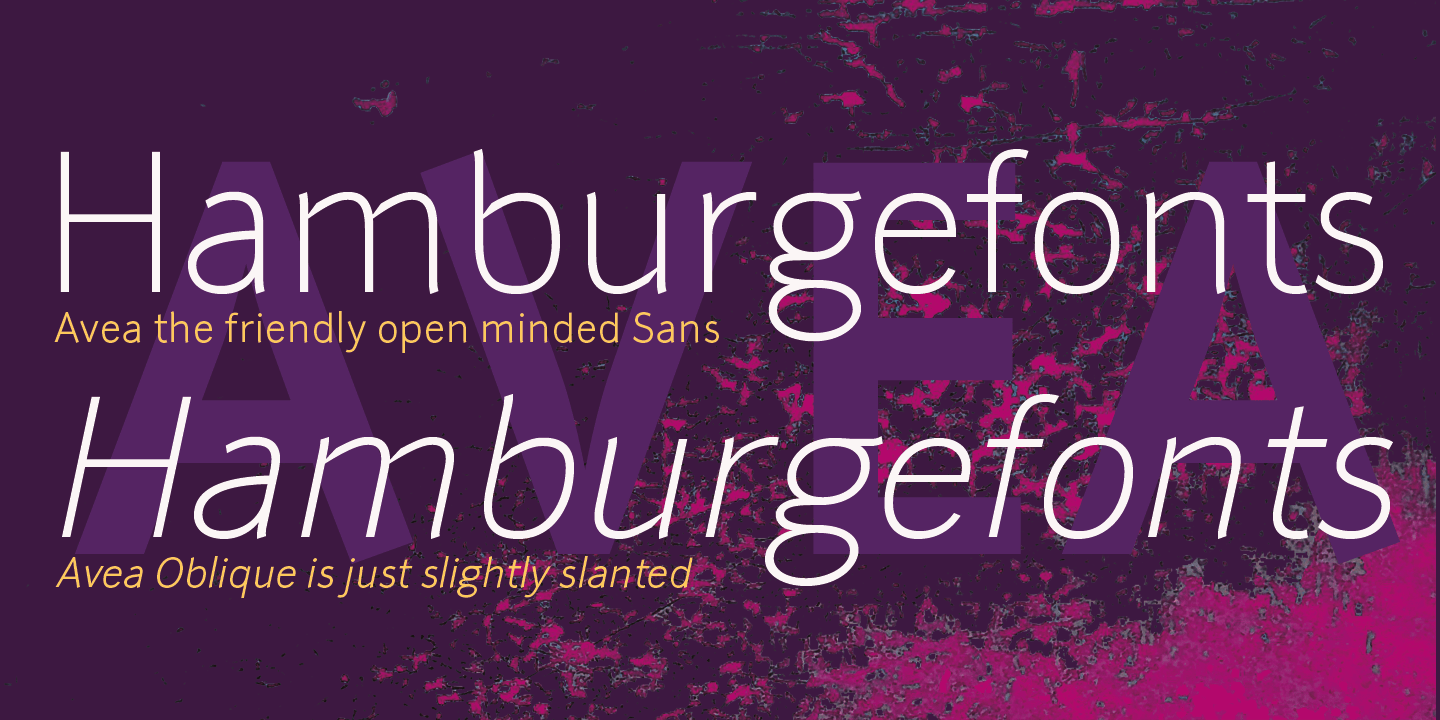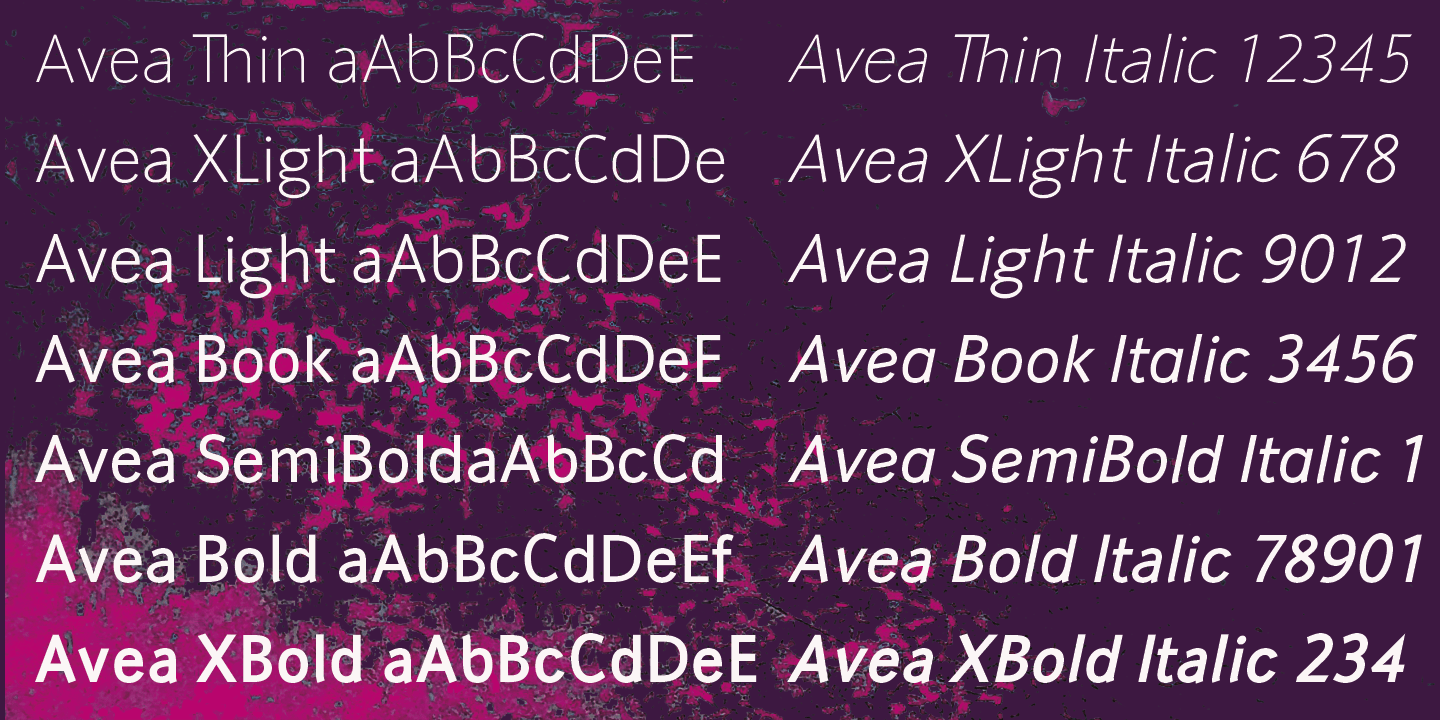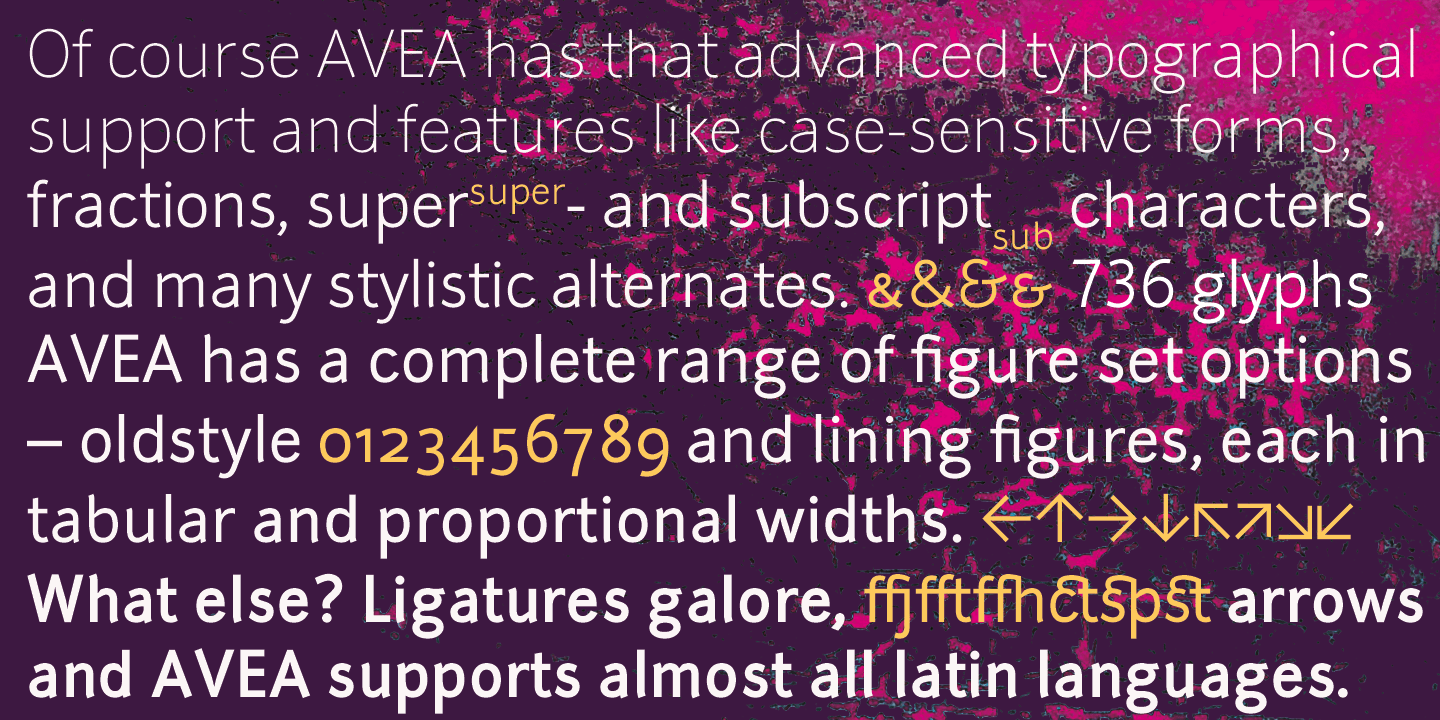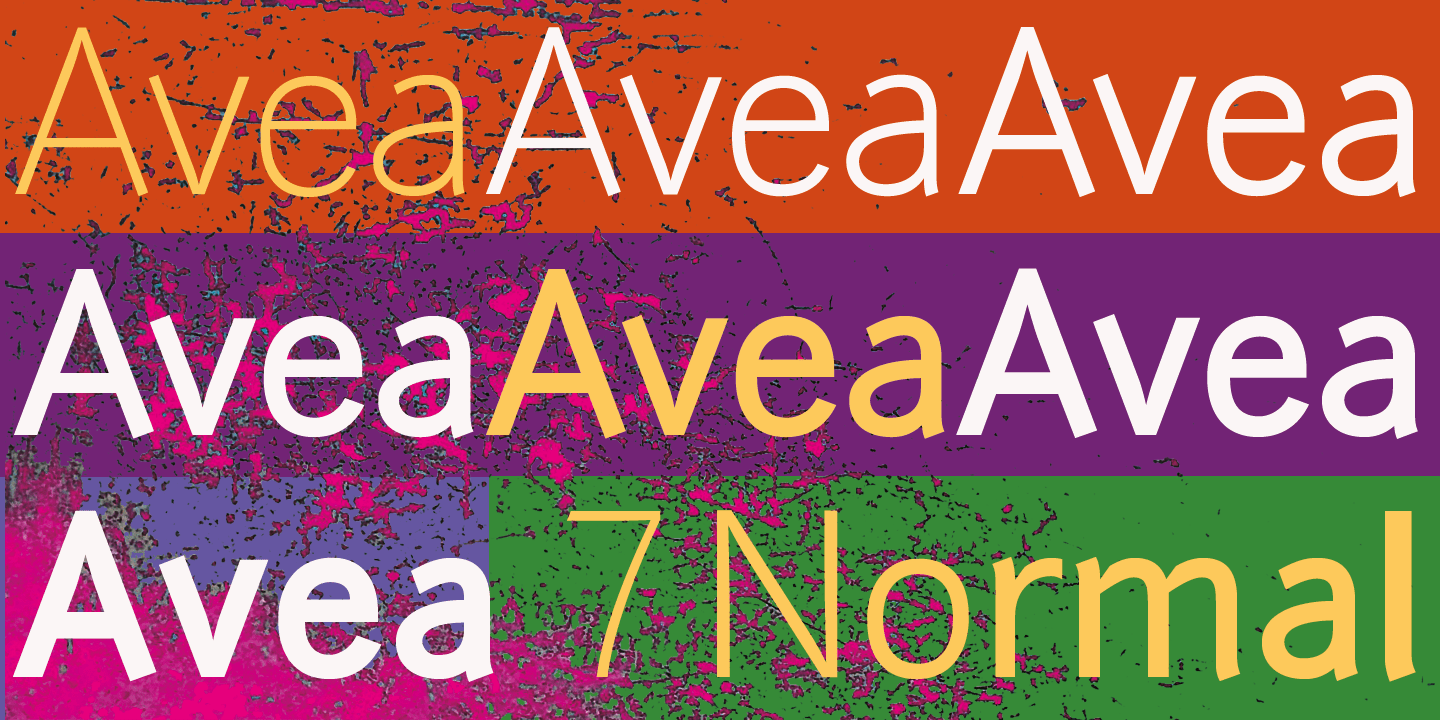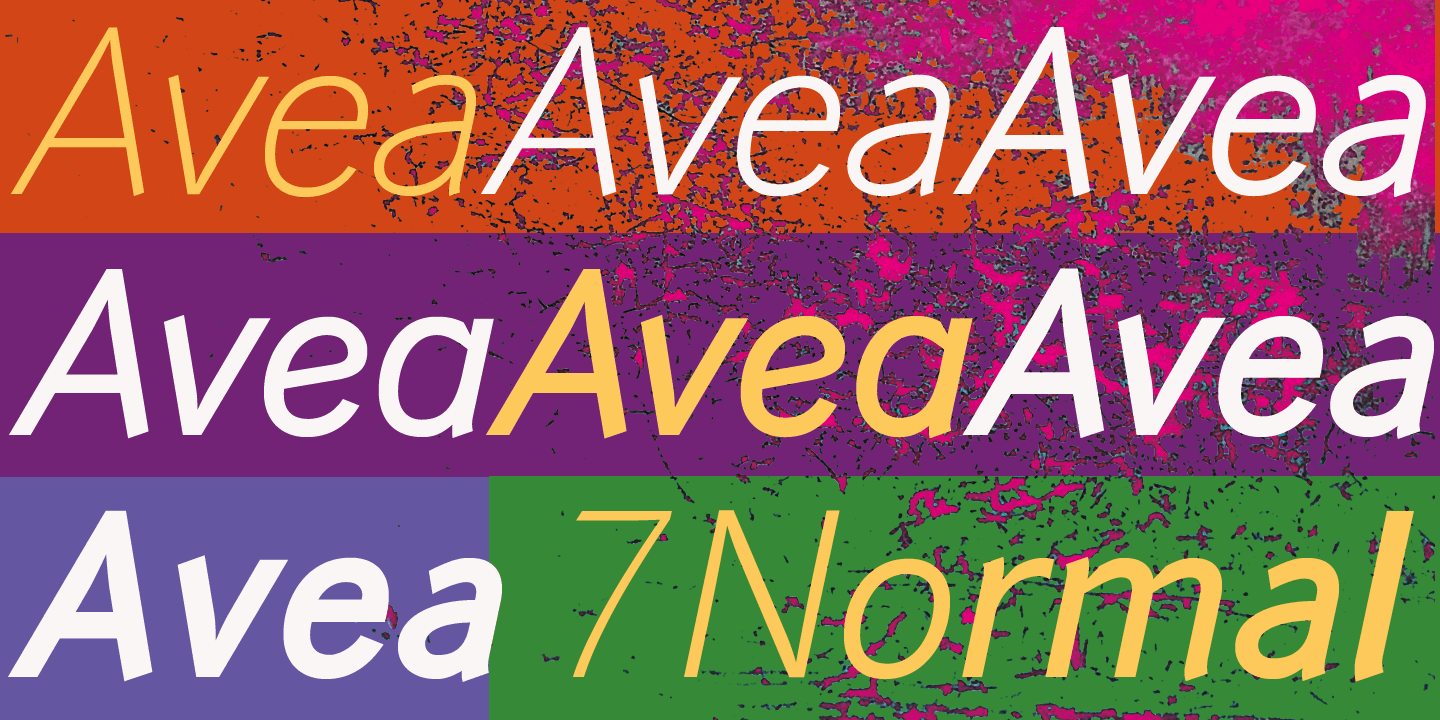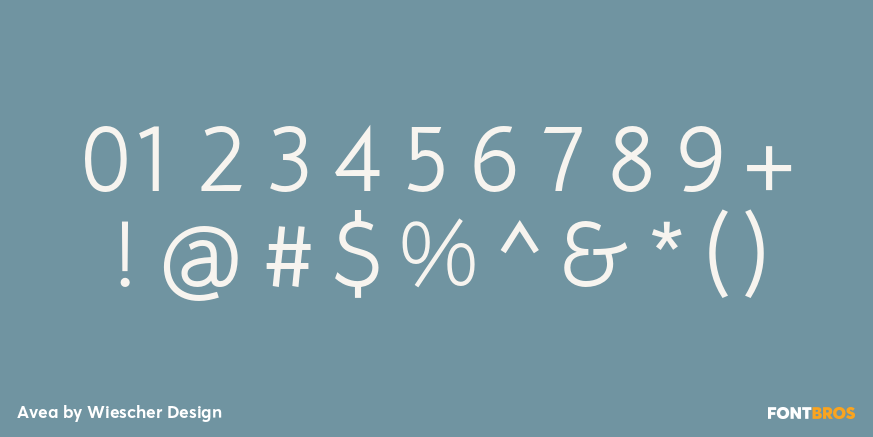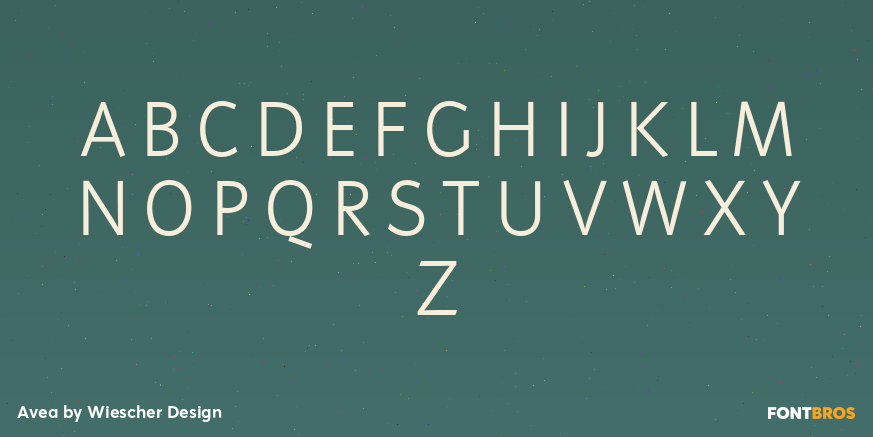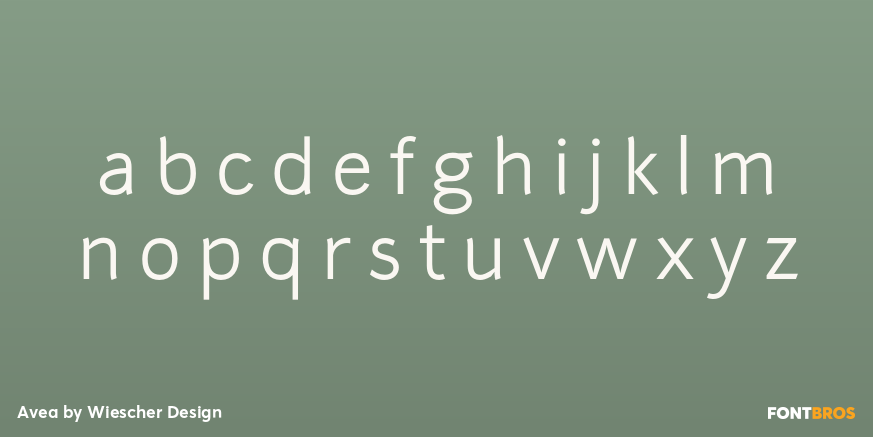
Avea
Font Family by Wiescher Design
»Avea« is a new, elegant, friendly and open minded font– designed by Gert Wiescher in 2015 – it has 7 weights with corresponding oblique cuts. »Avea« is well suited for advertising, logo, billboards, small text, signage, branding, packaging, editorial, posters, web and screen design. »Avea« is an OpenType family for professional typography with an extended character set of over 700 glyphs and extensive kerning. It supports more than 40 Central- and Eastern-European as well as many Western languages. Ligatures, different figures, fractions, currency symbols and small caps can be found in all cuts.